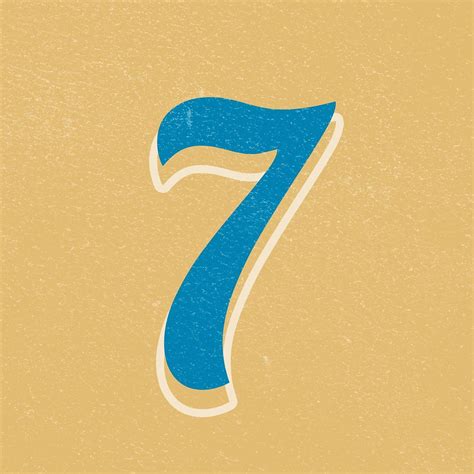
Number 7 Tattoo Fonts
Number 7 Tattoo Fonts - Lettering styles include tribal, traditional sailor,. Web roman numerals one of the most popular and timeless number fonts for tattoos is roman numerals. Find and download the right font for your next tattoo. Number tattoos are back in trend! Web yes, you heard it right: Web 1 to 15 of 850 results looking for tattoo fonts? Every font is free to. Click to find the best 849 free fonts in the tattoo style. Whether you’re choosing a birth year, an angelic number,. Stylecraze design team this font is all about clarity and precision, just like.
Web yes, you heard it right: Click to find the best 849 free fonts in the tattoo style. Every font is free to. Web roman numerals one of the most popular and timeless number fonts for tattoos is roman numerals. Find and download the right font for your next tattoo. Whether you’re choosing a birth year, an angelic number,. Lettering styles include tribal, traditional sailor,. Number tattoos are back in trend! Stylecraze design team this font is all about clarity and precision, just like. Web 1 to 15 of 850 results looking for tattoo fonts?
Click to find the best 849 free fonts in the tattoo style. Web roman numerals one of the most popular and timeless number fonts for tattoos is roman numerals. Find and download the right font for your next tattoo. Every font is free to. Stylecraze design team this font is all about clarity and precision, just like. Web 1 to 15 of 850 results looking for tattoo fonts? Whether you’re choosing a birth year, an angelic number,. Web yes, you heard it right: Lettering styles include tribal, traditional sailor,. Number tattoos are back in trend!
Typography 7 Number Design
Find and download the right font for your next tattoo. Lettering styles include tribal, traditional sailor,. Every font is free to. Web 1 to 15 of 850 results looking for tattoo fonts? Number tattoos are back in trend!
Click to find the best 849 free fonts in the tattoo style. Web 1 to 15 of 850 results looking for tattoo fonts? Stylecraze design team this font is all about clarity and precision, just like. Every font is free to. Whether you’re choosing a birth year, an angelic number,.
Click to find the best 849 free fonts in the tattoo style. Every font is free to. Lettering styles include tribal, traditional sailor,. Number tattoos are back in trend! Stylecraze design team this font is all about clarity and precision, just like.
Find and download the right font for your next tattoo. Click to find the best 849 free fonts in the tattoo style. Web 1 to 15 of 850 results looking for tattoo fonts? Web yes, you heard it right: Lettering styles include tribal, traditional sailor,.
Find and download the right font for your next tattoo. Stylecraze design team this font is all about clarity and precision, just like. Number tattoos are back in trend! Web 1 to 15 of 850 results looking for tattoo fonts? Lettering styles include tribal, traditional sailor,.
Web yes, you heard it right: Lettering styles include tribal, traditional sailor,. Whether you’re choosing a birth year, an angelic number,. Web roman numerals one of the most popular and timeless number fonts for tattoos is roman numerals. Stylecraze design team this font is all about clarity and precision, just like.
Lettering styles include tribal, traditional sailor,. Web roman numerals one of the most popular and timeless number fonts for tattoos is roman numerals. Whether you’re choosing a birth year, an angelic number,. Click to find the best 849 free fonts in the tattoo style. Number tattoos are back in trend!
Pin by 伟黄 斌 on Tattoos Number tattoo fonts, Tattoo lettering fonts
Number tattoos are back in trend! Web roman numerals one of the most popular and timeless number fonts for tattoos is roman numerals. Every font is free to. Click to find the best 849 free fonts in the tattoo style. Find and download the right font for your next tattoo.
Lucky Or Not The Meaning Behind The Design Of A Number ‘7’ Tattoo
Find and download the right font for your next tattoo. Web yes, you heard it right: Web 1 to 15 of 850 results looking for tattoo fonts? Web roman numerals one of the most popular and timeless number fonts for tattoos is roman numerals. Every font is free to.
Pin de deedra buchanan em *******7******* 7 tatuagens, Tatuagem
Web yes, you heard it right: Stylecraze design team this font is all about clarity and precision, just like. Click to find the best 849 free fonts in the tattoo style. Web 1 to 15 of 850 results looking for tattoo fonts? Web roman numerals one of the most popular and timeless number fonts for tattoos is roman numerals.
Number Tattoos Are Back In Trend!
Web yes, you heard it right: Click to find the best 849 free fonts in the tattoo style. Stylecraze design team this font is all about clarity and precision, just like. Lettering styles include tribal, traditional sailor,.
Web Roman Numerals One Of The Most Popular And Timeless Number Fonts For Tattoos Is Roman Numerals.
Web 1 to 15 of 850 results looking for tattoo fonts? Whether you’re choosing a birth year, an angelic number,. Find and download the right font for your next tattoo. Every font is free to.